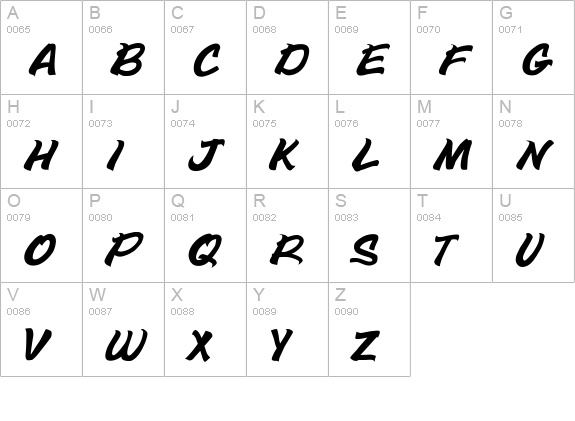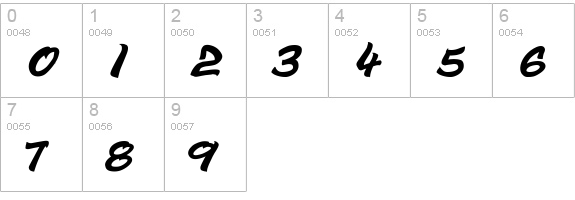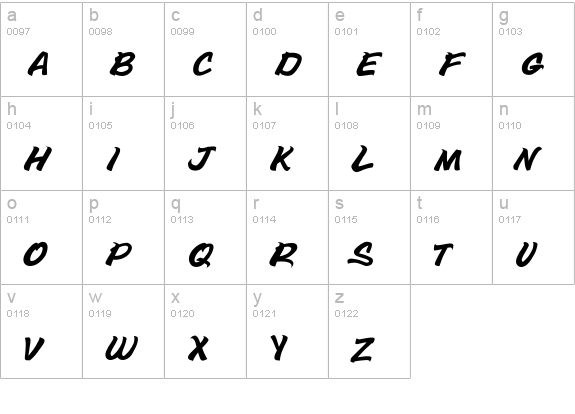
Bottle Depot Font Details
Introducing Bottle Depot, a captivating font that effortlessly combines modernity and vintage charm. This versatile typeface is perfect for adding a touch of sophistication to any design project. Whether you're working on a logo, branding materials, or a creative display, Bottle Depot will make a lasting impression. With its bold strokes and unique letterforms, Bottle Depot commands attention while maintaining a sense of elegance. Each character is meticulously crafted, ensuring a seamless flow and impeccable legibility in any size or format. The font's well-balanced proportions allow for easy readability across various mediums, making it an ideal choice for both print and digital applications. One of the most remarkable aspects of Bottle Depot is that it is available free of charge. Yes, you read that right! This stunning font can be freely downloaded at FontsMarket.com, allowing you to enhance your designs without any cost constraints. It's a true gem in the world of typography, offering professional quality without the hefty price tag. Bottle Depot's versatility is further enhanced by its extensive character set, including uppercase letters, lowercase letters, numerals, punctuation marks, and multilingual support. This ensures that you can truly make this font your own, no matter the language or design requirements. Whether you're a seasoned designer or just starting out, Bottle Depot will undoubtedly become a valuable asset in your font library. Its timeless appeal and effortless style will elevate any project, leaving a lasting impression on your audience. So why wait? Download Bottle Depot for free at FontsMarket.com and unlock a world of limitless creative possibilities.